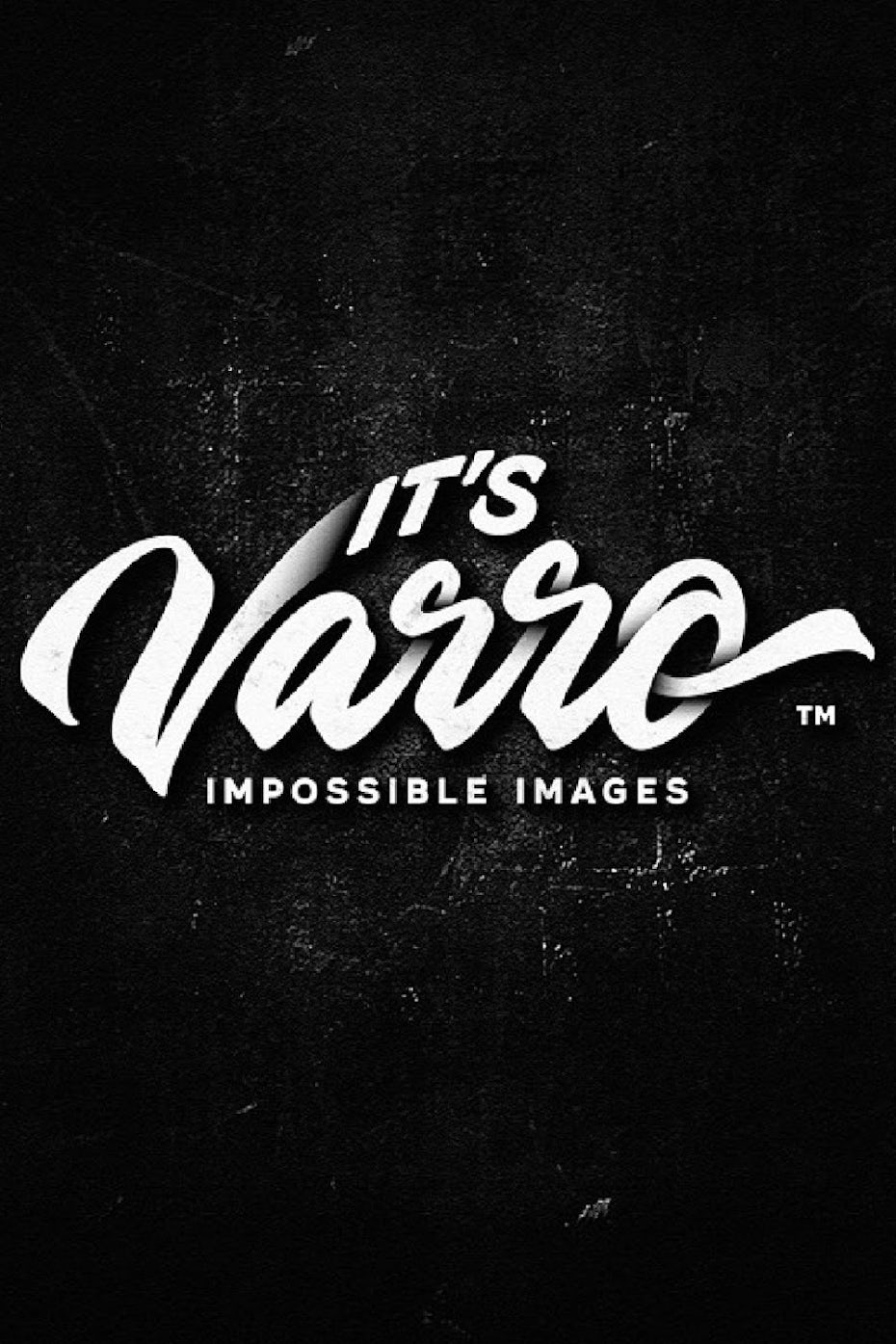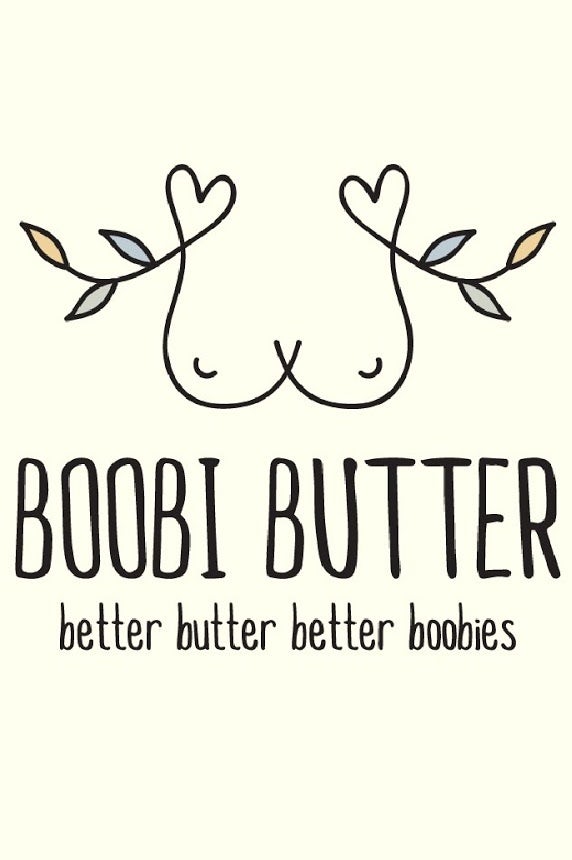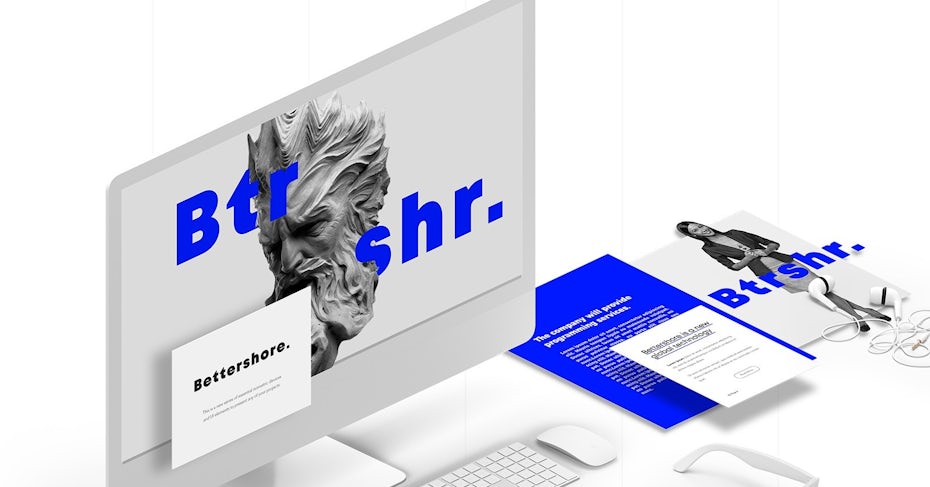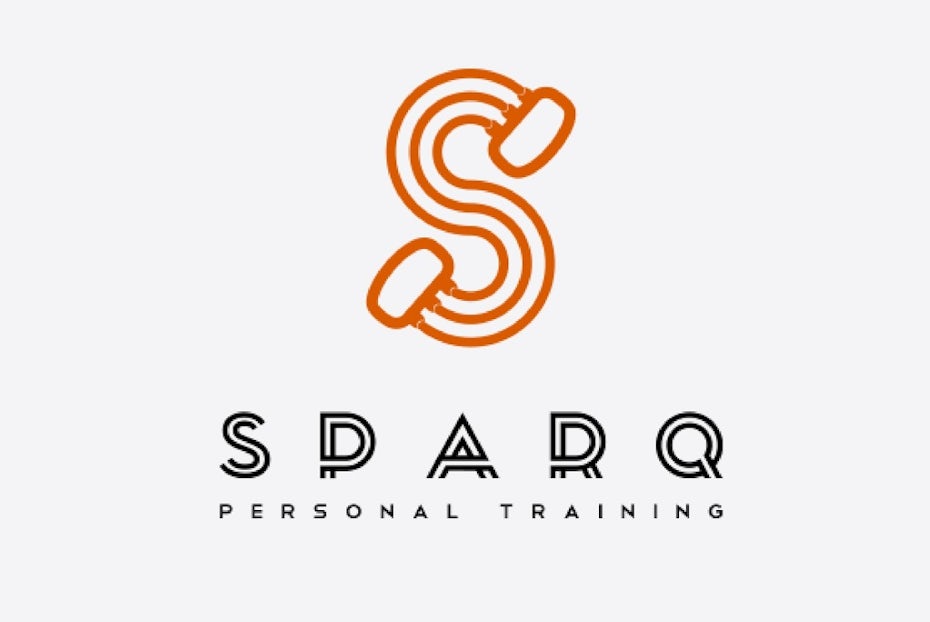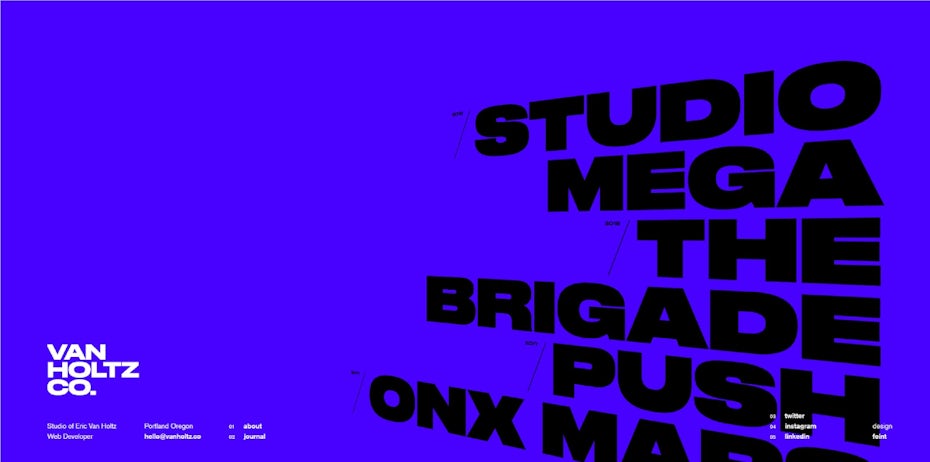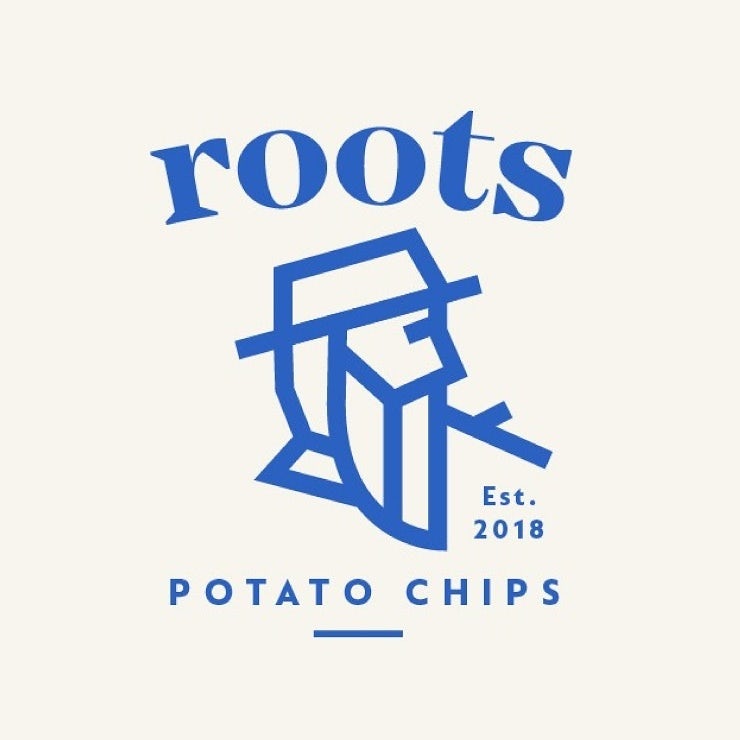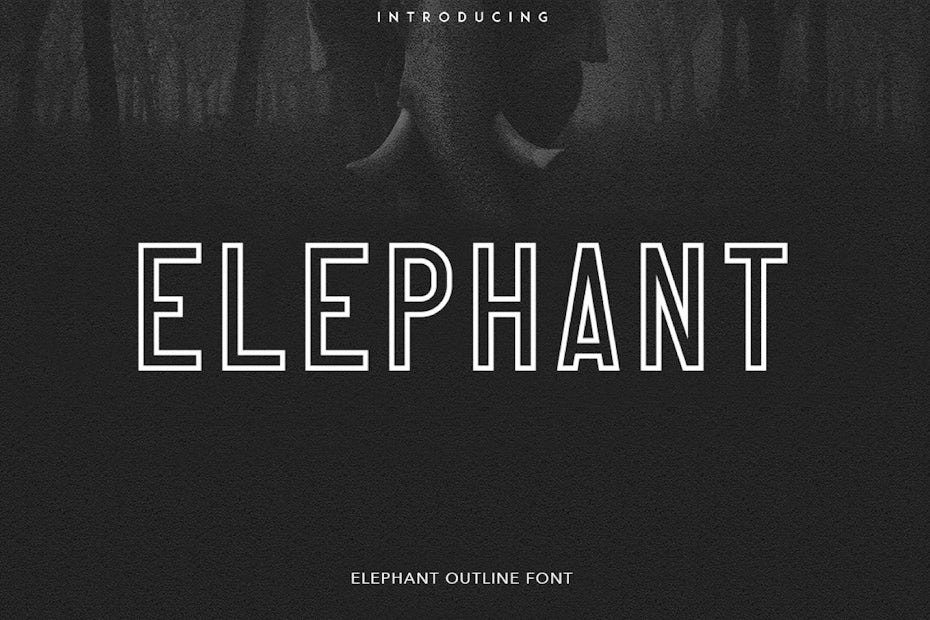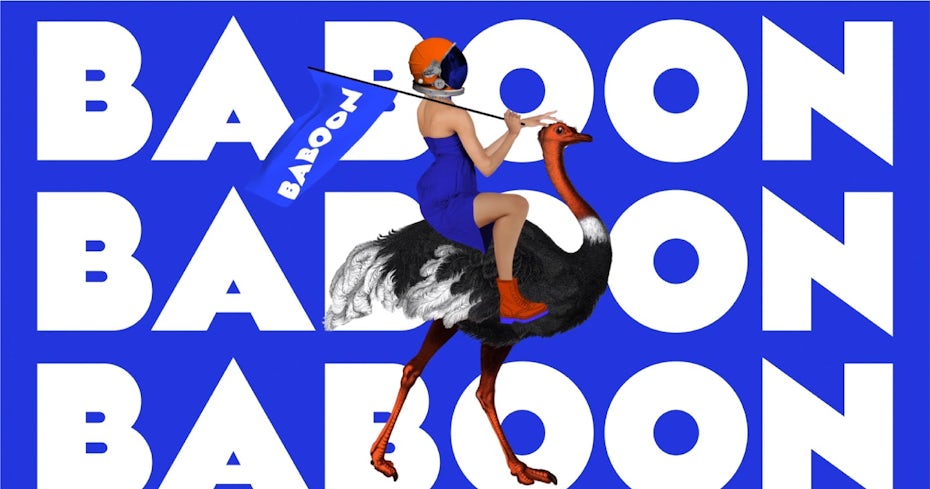
Free Font 2019 Trend Free Typography Fonts
All Free PSD Mockups - Download Free SVG Cut FilesUse this exercise to solve any product design challenge. Lets take a closer look at the font design trends in 2019 so that you can use them in your future projects. These fonts were all created in 2019.
Give your design a fresh new look with trendy bold or outline fonts.
Font 2019 trend. Here are a few of our favorite geometric sans fonts that will dominate font trends in 2020. Designed and published by rene bieder in 2019. Font trends for 2020 and beyond its clear that 2020 is going to be an exciting year for font trends. High contrast serif fonts 7.
Best free fonts for 2019. Extra loud bold fonts 2. Gdj is one of the best graphic design resources website to download highest quality fonts freebies web and graphic design resources like vector graphics mockups psd graphics ui design elements and much morein this collection you will find hundred greatest free fontsyou can never have enough fonts and if youre feeling this is a really great article so. Hence the following selection is focusing on a variety of typographic trends.
Eleana gkogka in muzli design inspiration. Expanded by bitstream into a complete series of round edged text faces this is a font whose popularity we foresee continuing strongly throughout 2019. These professionally designed best free fonts can significantly improve your design by simply included them in the project you are working on. From amazing throwback sans serifs pulled from the mid century to kinetic animated fonts from bare bones minimalism to ornate vintage styles designers are figuring out how to use past trends to make fresh designs we cant get enough of.
Evolving script fonts 5. Hopefully the ultimate guide to an interface icon set. In 2019 extra loud dramatic bold fonts will continue to grow in. All fonts are comes with a different handy set of opentype stylistic alternates ornament ligatures multiple language support and extras.
This year you need to pay extra attention to variable fonts which have different versions. Nostalgic vintage fonts 4. Minimal sans serif fonts 3. See the timeline overview for more years and a history of free fonts.
Personal use free. Designed by oswald bruce cooper and released by the barnhart brothers spindler type foundry in 1922 cooper is a truly classic typeface. The design trends for fonts are changing constantly. To make it short this is our handpicked selection of 10 best fonts in 2019.
9 font trends that will be huge in 2019 1. If the internet had its own handwriting it would be a geometric sans. 30 great free fonts for 2019. These are clean utilitarian fonts that work well in both print and digital mediums making them insanely popular with well pretty much everyone.